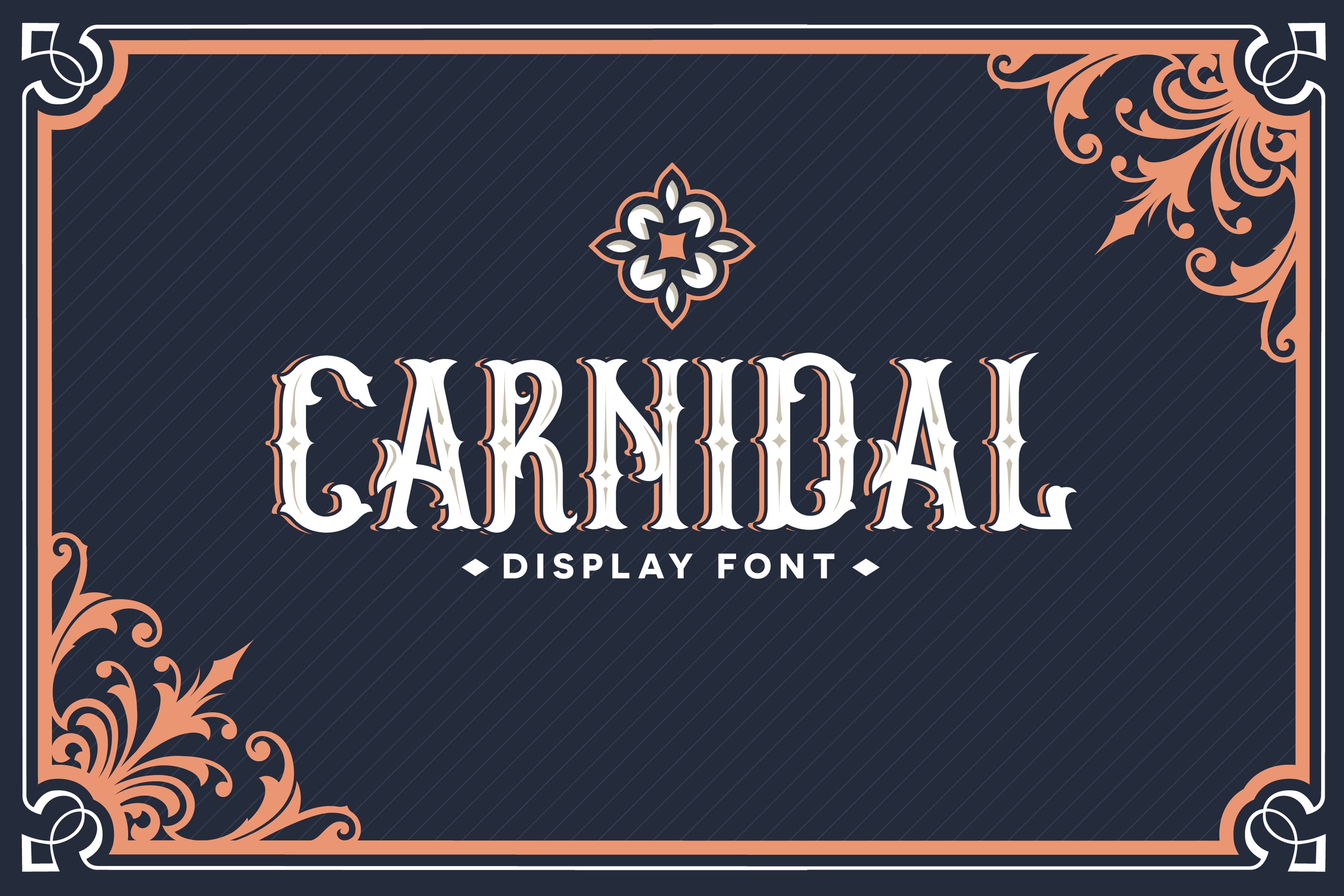
Carnidal Font
Carnidal Font is perfect for carnival attraction signage, festive amusement park branding, colorful circus posters, joyful fair promotions, celebration event materials, vibrant party decorations, fun festival marketing, cheerful entertainment venues, playful carnival merchandise, and spectacular celebration campaigns.
Carnidal Font creates excitement because it embodies the exuberant energy and festive spirit of carnival celebrations with its dynamic letterforms and celebration-inspired character design. The font's vibrant movement and carnival aesthetic instantly convey joy and spectacular entertainment, making any brand appear festive and authentically celebratory. Its carefully crafted carnival details and festive character create an immediate sense of celebration excitement that captivates audiences seeking joyful experiences, spectacular entertainment, and products that celebrate the thrilling magic of carnival culture and festive celebration.
The Carnidal Font family includes multiple weights and styles: Regular, Bold, Light, Medium, Italic, Condensed, Extended, Festive, Spectacular, and Carnival versions. Each variant maintains the font's signature celebratory character while offering different levels of festival energy and carnival styling suitable for various entertainment and celebration applications.
This spectacular typeface brings the authentic spirit of carnival celebration into contemporary entertainment design with remarkable festive energy and carnival appeal. Carnidal Font Free Download provides entertainment brands and celebration organizers with access to premium carnival-inspired typography that embodies the essence of festive joy and spectacular entertainment. The font's celebratory design and carnival authenticity make it ideal for businesses seeking to establish meaningful connections with audiences who appreciate festive entertainment, carnival culture, and the transformative power of joyful celebration. Whether you're creating branding for amusement parks, designing materials for carnival events, developing signage for festival attractions, or producing marketing content for celebration venues, this font delivers the carnival atmosphere that resonates with audiences seeking spectacular entertainment, festive joy, and the exhilarating excitement that comes from authentic carnival experiences. Its versatile design ensures excellent performance across both colorful outdoor signage and dynamic digital celebration platforms while maintaining the character of authentic carnival typography. The font excels in applications requiring entertainment credibility and festive appeal. Carnival entertainment professionals appreciate its ability to convey celebration excitement while remaining highly functional for various festival communications and carnival promotional materials. The comprehensive character set includes carnival symbols and extensive international language support, making it perfect for global entertainment brands and international carnival organizations seeking to communicate authentic celebration spirit, festive entertainment values, and carnival joy to diverse worldwide audiences who embrace festive culture, seek spectacular entertainment, and value the transformative power of authentic carnival celebration that brings communities together through shared joy, spectacular entertainment, and the magical spirit of carnival that creates unforgettable memories filled with laughter, wonder, and pure celebration excitement.